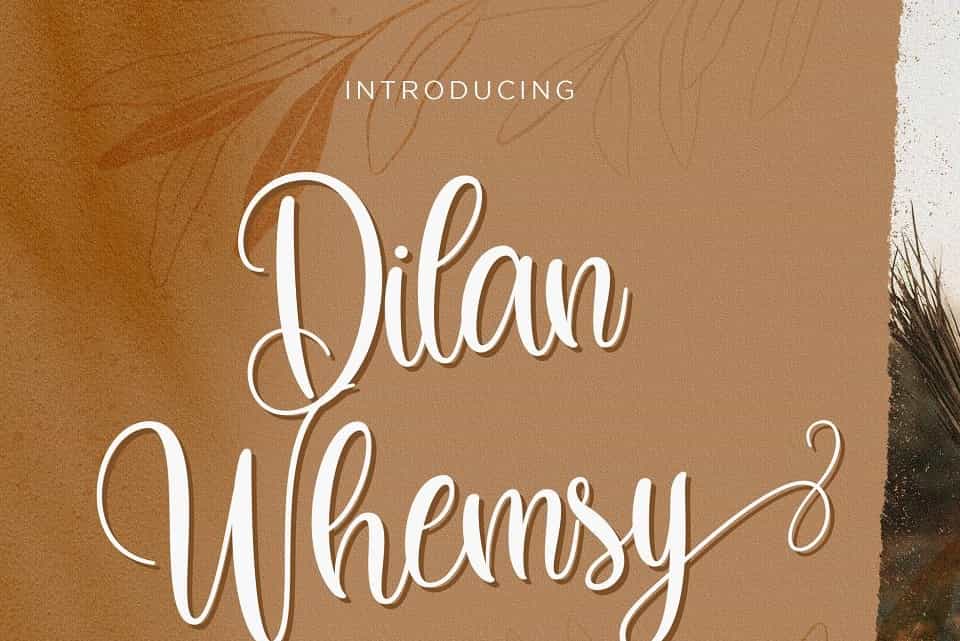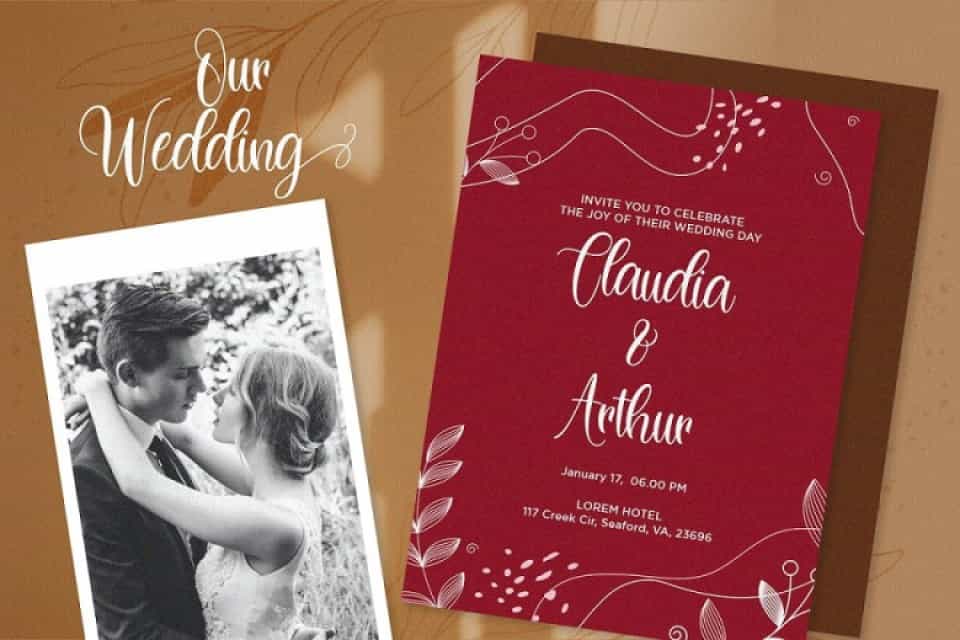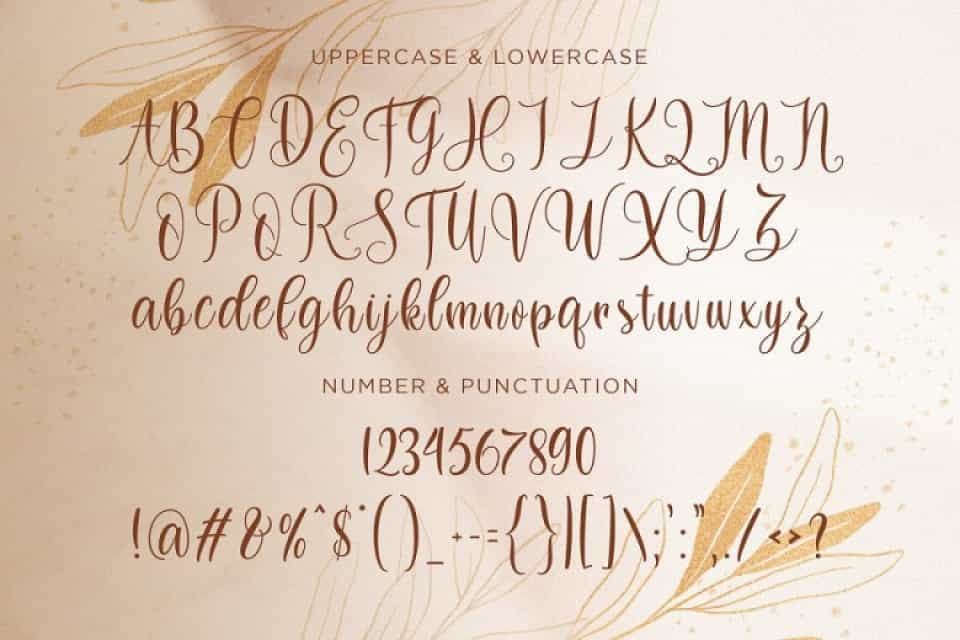
Dilan Whemsy Modern script fonts combine copperplate calligraphy with contemporary typefaces in an elegant dancing base calligraphy script font. Dilan Whemsy script font is very elegant with various styles featuring soft lines without staining, featuring uppercase letters as well as lowercase letter alternatives as well as multilingual symbols, numerals punctuation, and numbers swash multilingual symbols and punctuation marks.